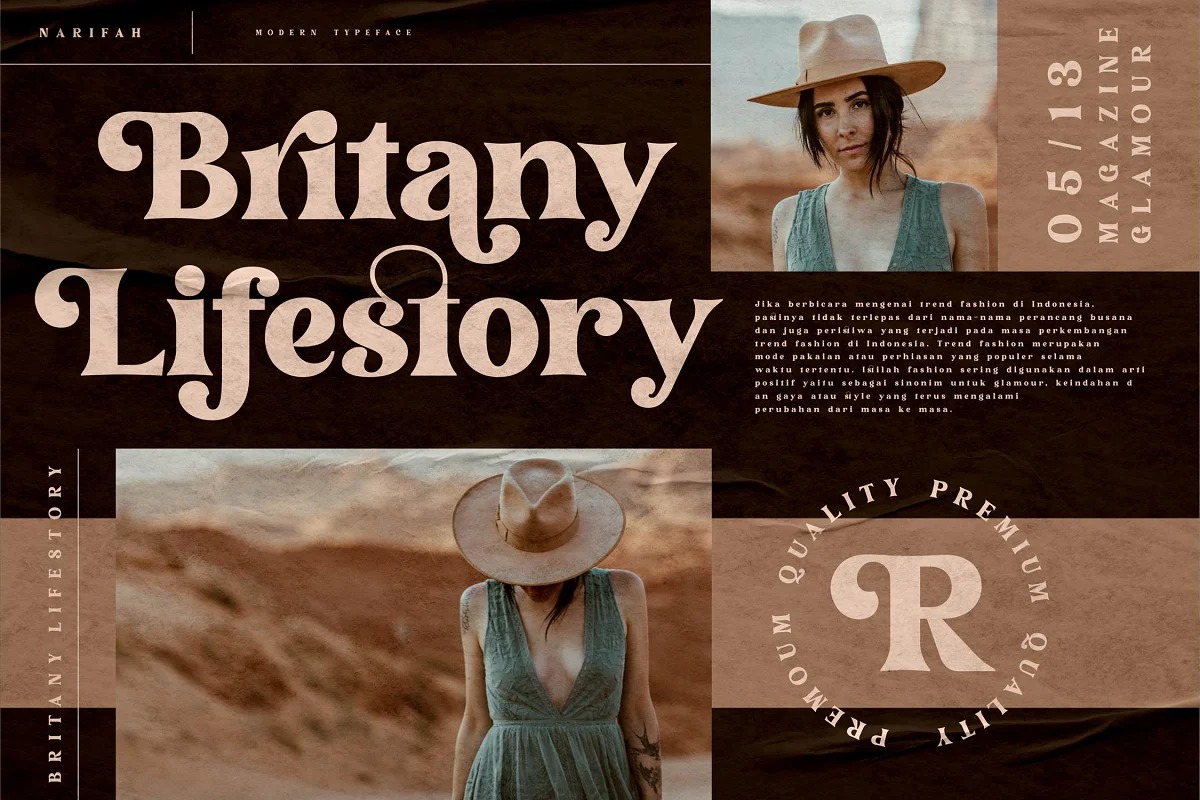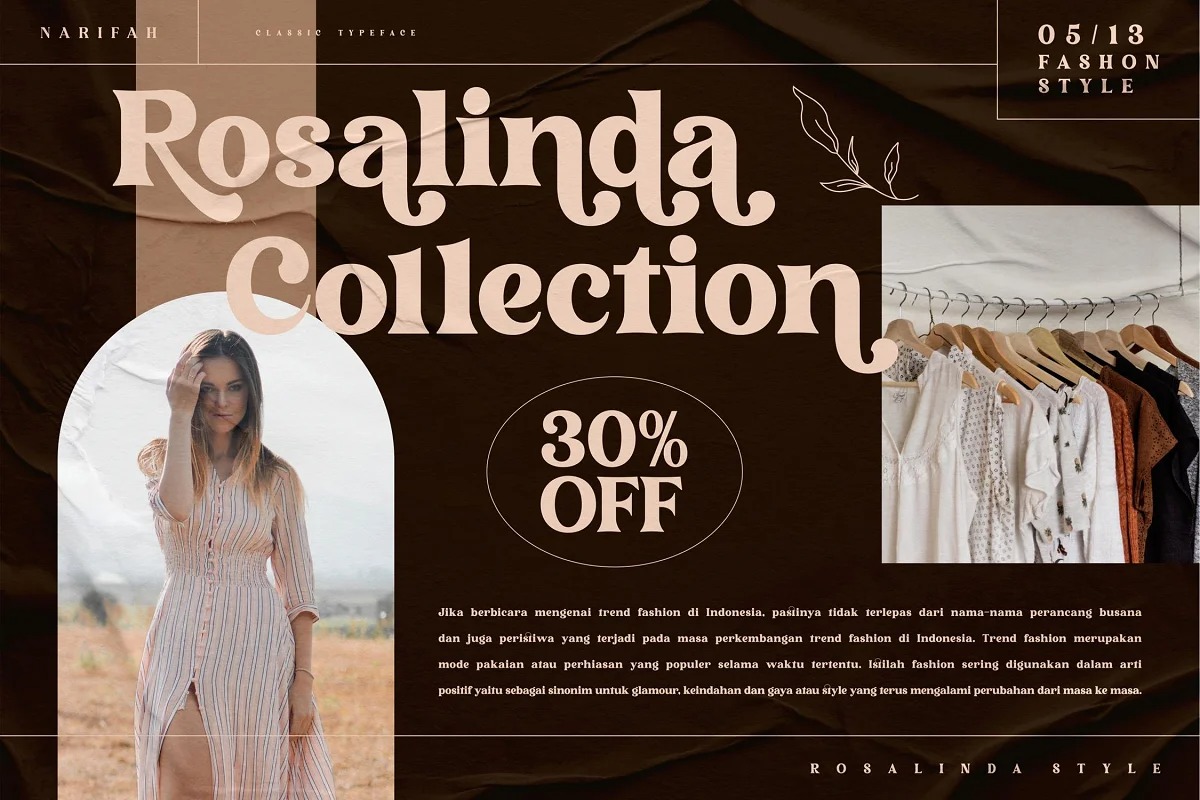
Narifah Font
Narifah Serif Font
This font is a unique, simple, clean and well appointed display serif. It’s designed and shared by Storytype Studio. This typeface is perfect for an elegant & luxury logo, book or movie title design, fashion brand, magazine, clothes, lettering, quotes, and so much more.